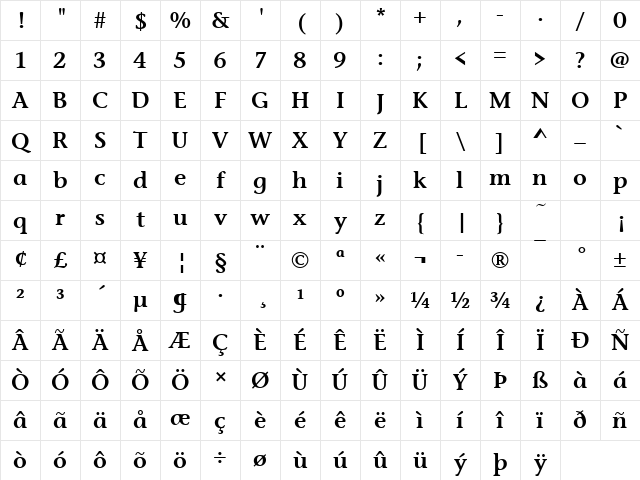
StoneInfItcTSem Regular
Design Context for StoneInfItcTSem
StoneInfItcTSem is a composed and adaptable typeface that performs quietly and consistently across a wide range of design contexts.